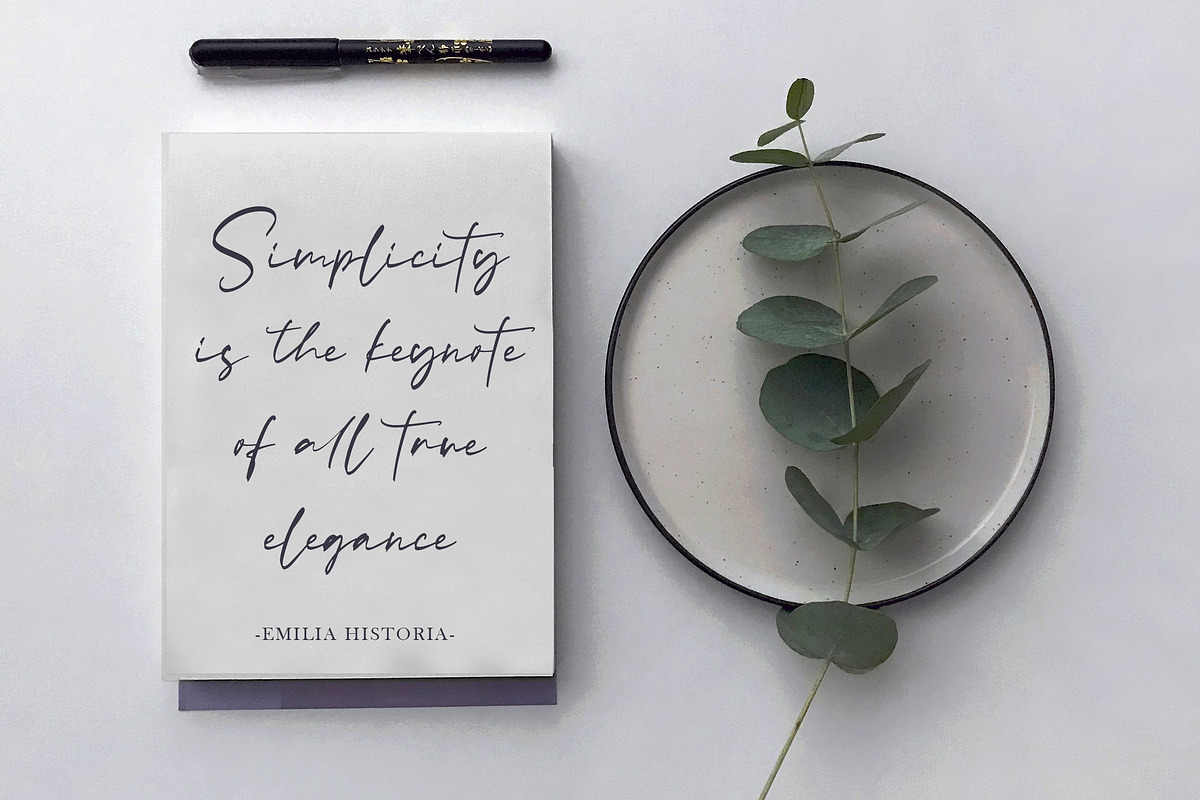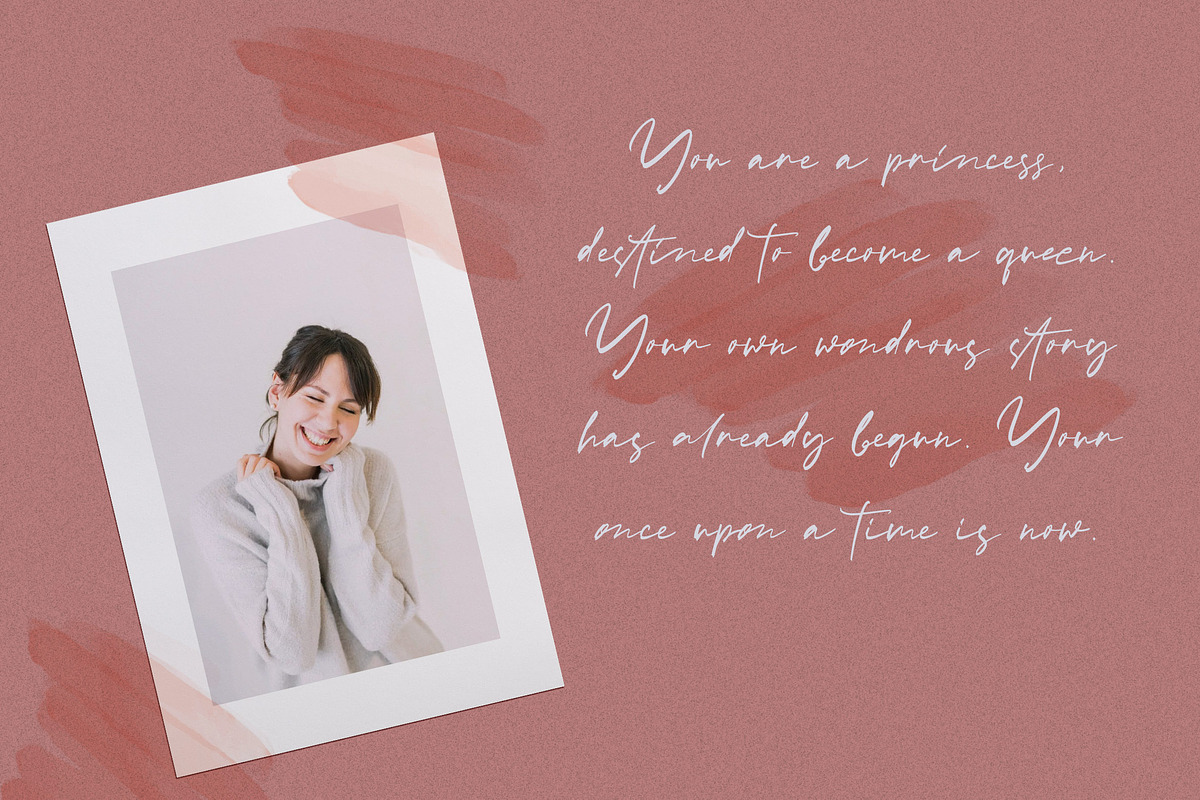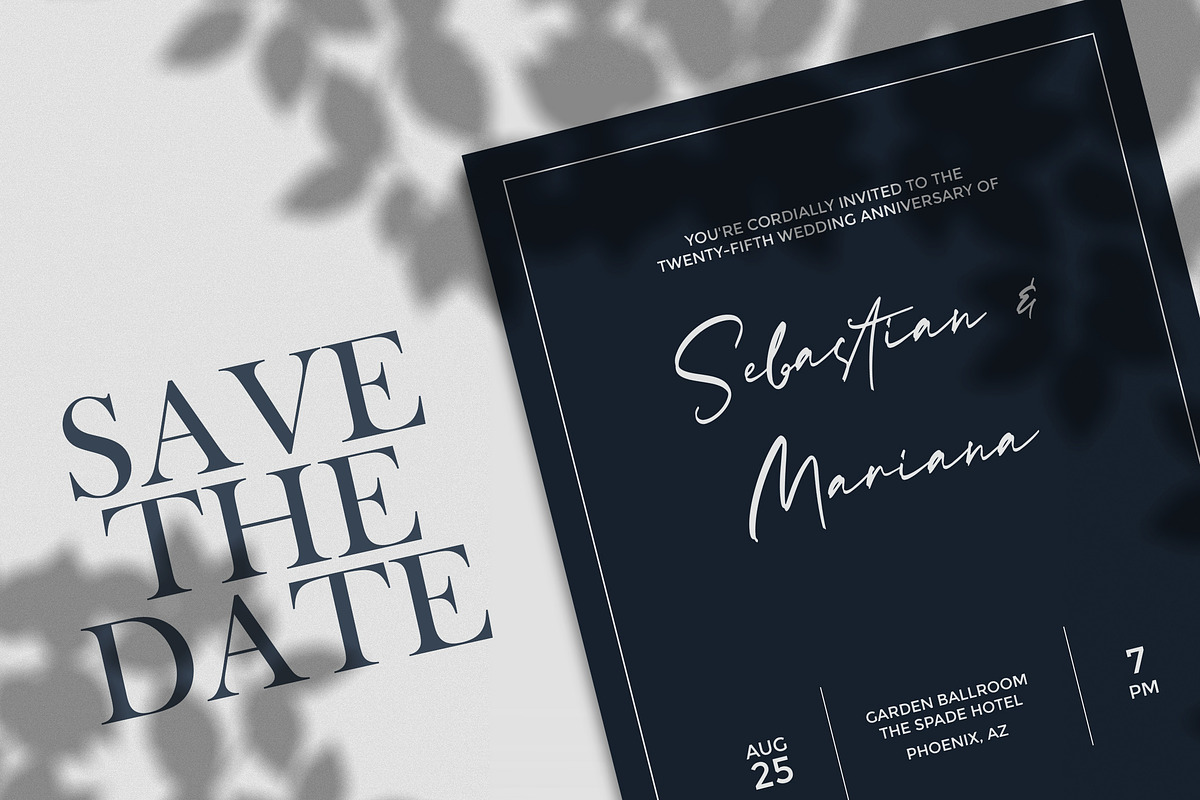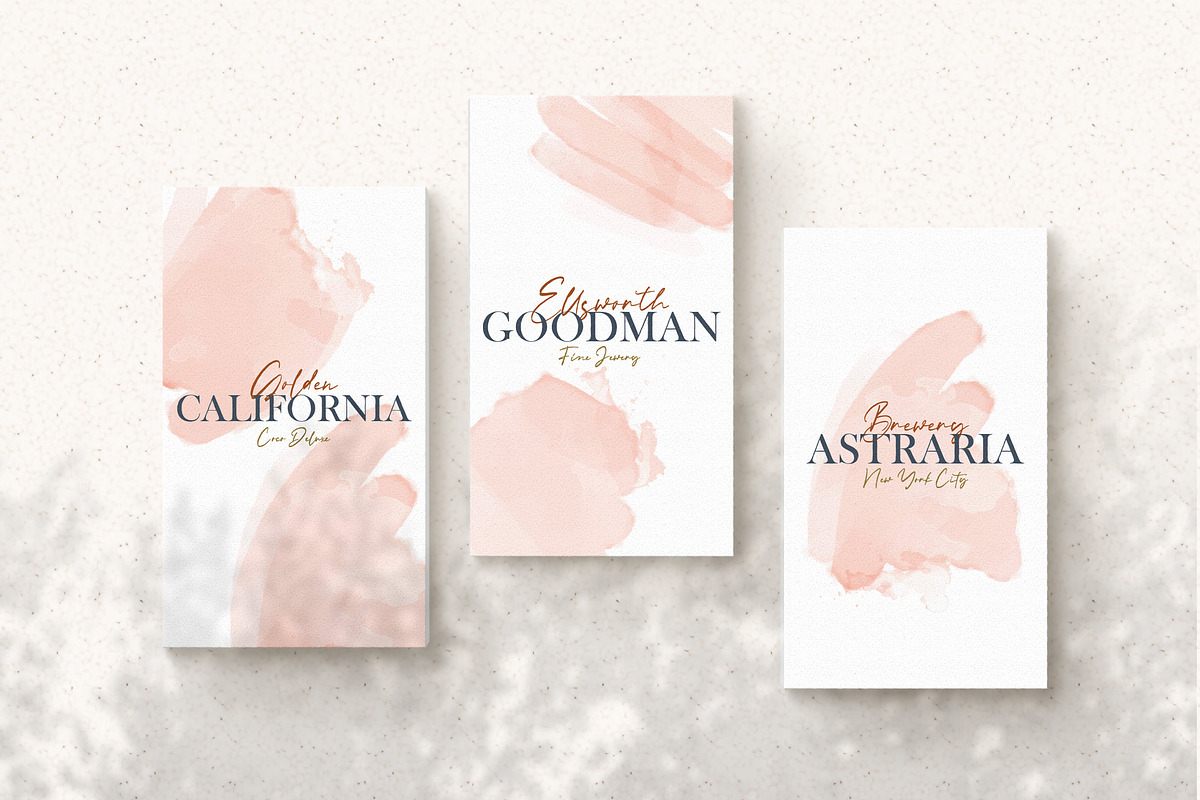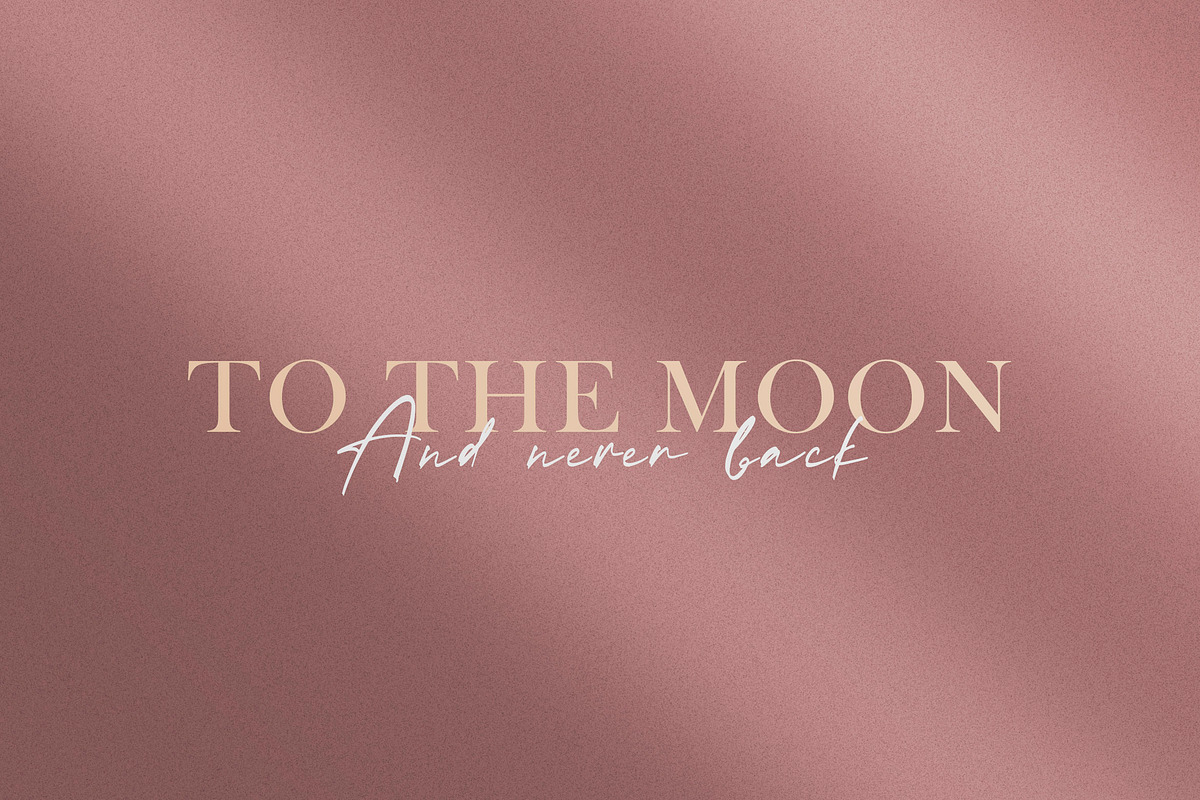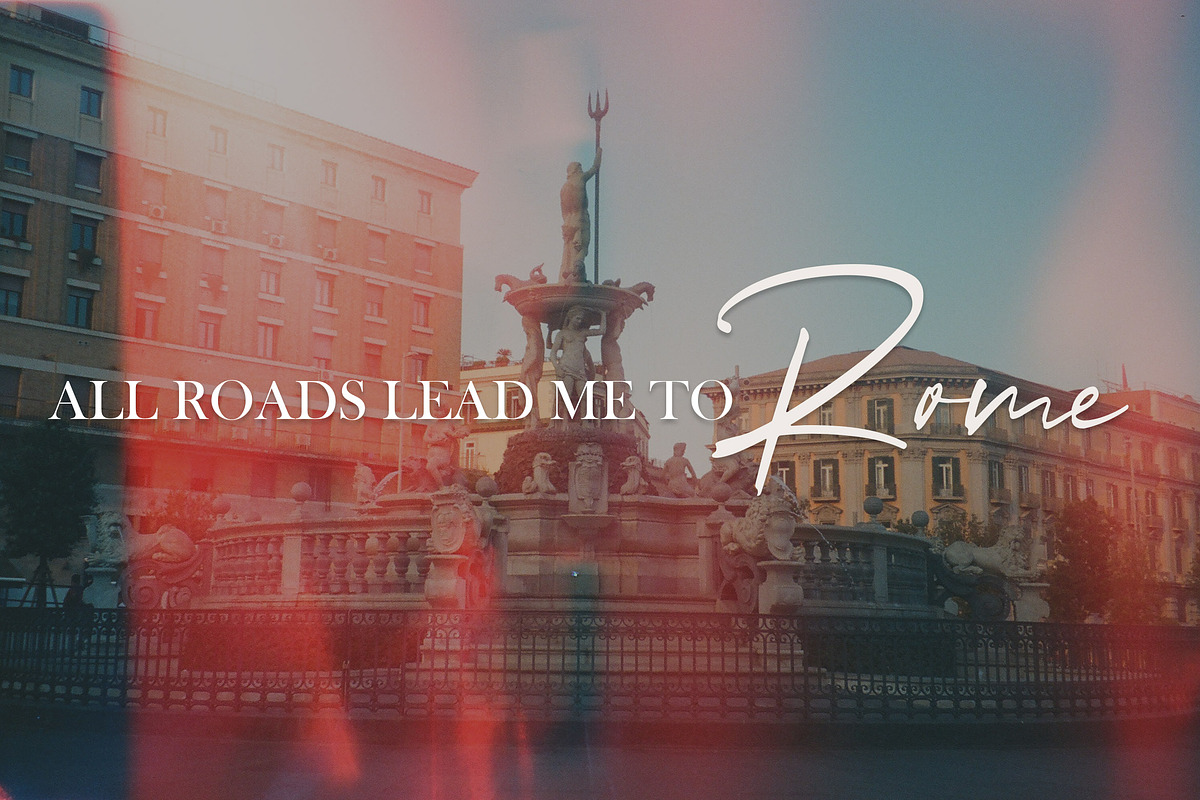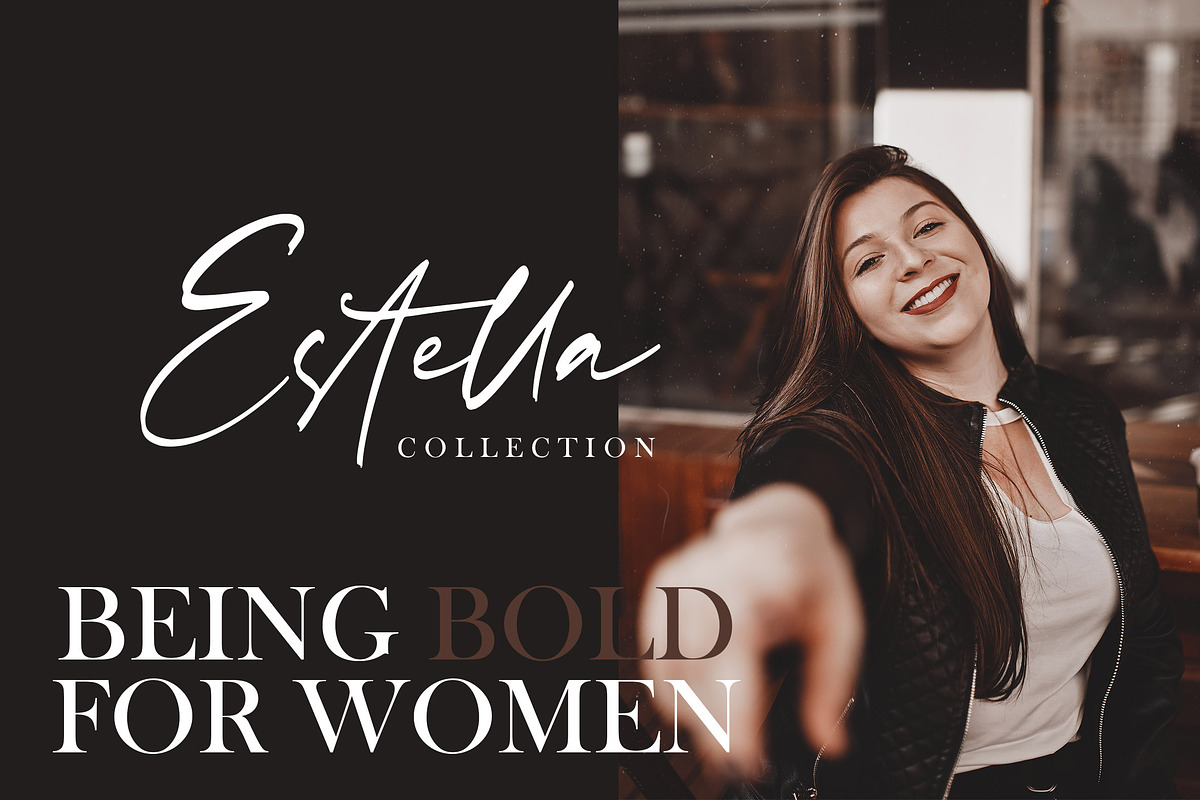
Rachelyne - Modern Calligraphy Font
Introducing Rachelyne - Modern Calligraphy Font
Rachelyne is a Calligraphy Script Font with Casual Style. This font is perfect for fashion brand, wedding invitation, business card, logo brand, signature, and also for calligraphy purpose.
- This Font Template contains Classy, Elegant, Creative, Cool and has a Unique Concept.
Why Rachelyne - Modern Calligraphy Font is worth a look
Rachelyne - Modern Calligraphy Font by StringLabs fits naturally into Branding, posters, packaging, typography.